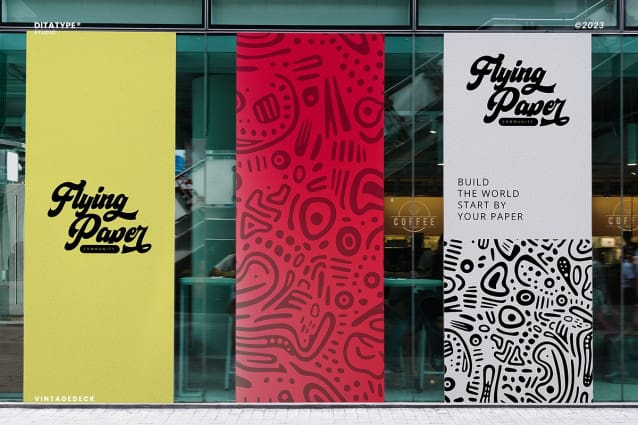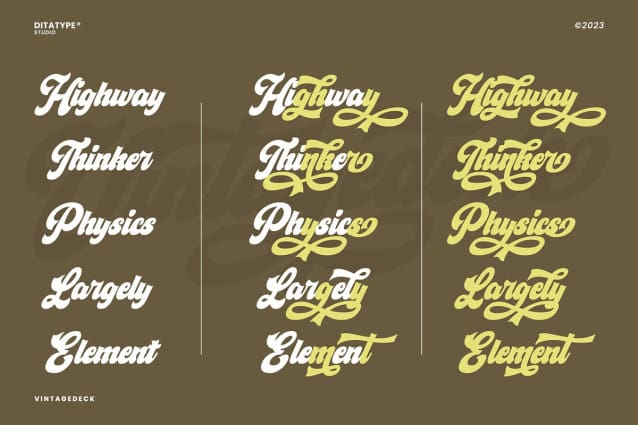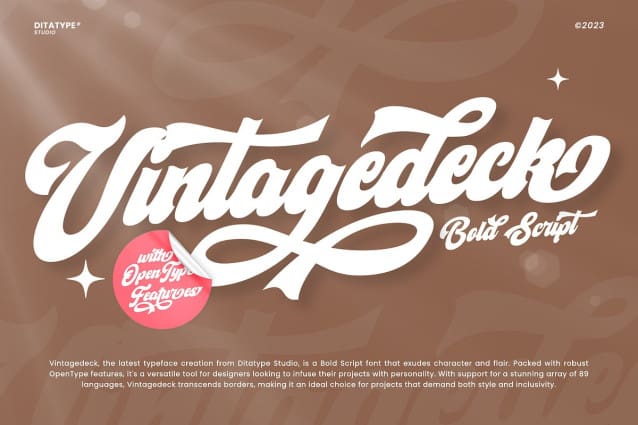
Vintagedeck Script Font
Vintagedeck Script Font, is a charming script font that gracefully combines vintage elegance with contemporary style. Each character in Vintagedeck Script is crafted with care. Designed with a fairly thick weight and a shape that gently nods to rounded forms, Vintagedeck is a versatile font that brings a touch of welcoming feel.
The overall looks create a warm, approachable aesthetic reminiscent of classic handwriting, yet perfectly suited for the demands of current design trends. To truly appreciate the beauty and clarity of this font, it is recommended to use it in a larger font size. This not only improves readability but also allows its unique characteristics to shine.